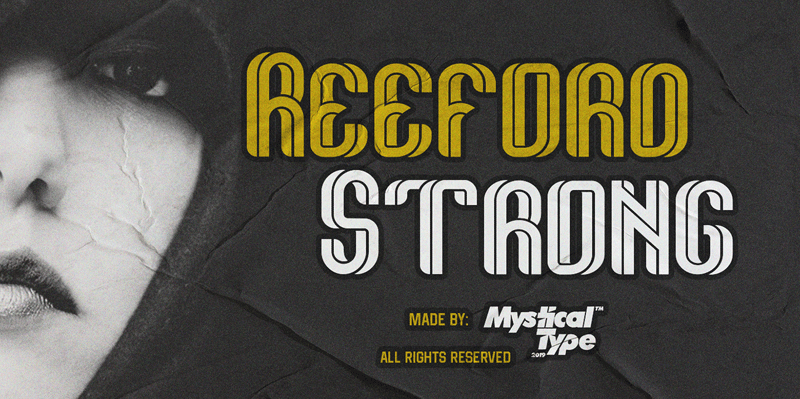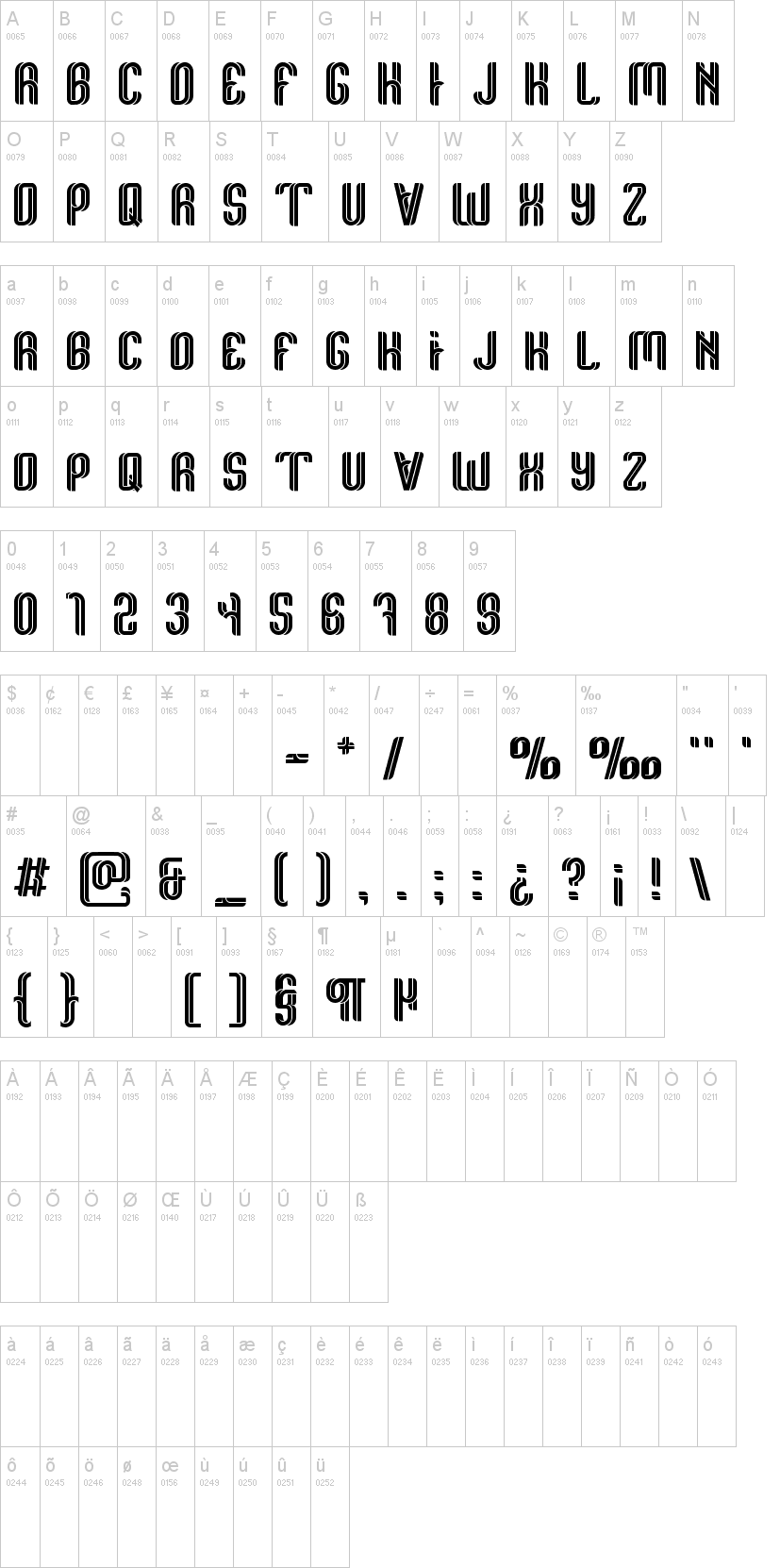
Reeford-Italic_DEMO.otfNote of the authorReeford is a unique typeface with a sporty, modern and adventurous edge.
Created to give additional punch titles, Reeford packs a complete set of capital letters, numbers, and punctuation. Whether it's a show, sporting event, logo design or a simple missing cat poster, Reeford is made to make an impact.
Each letter is a three-line thick puzzle completed which took months to collect. Hope you enjoy the results!